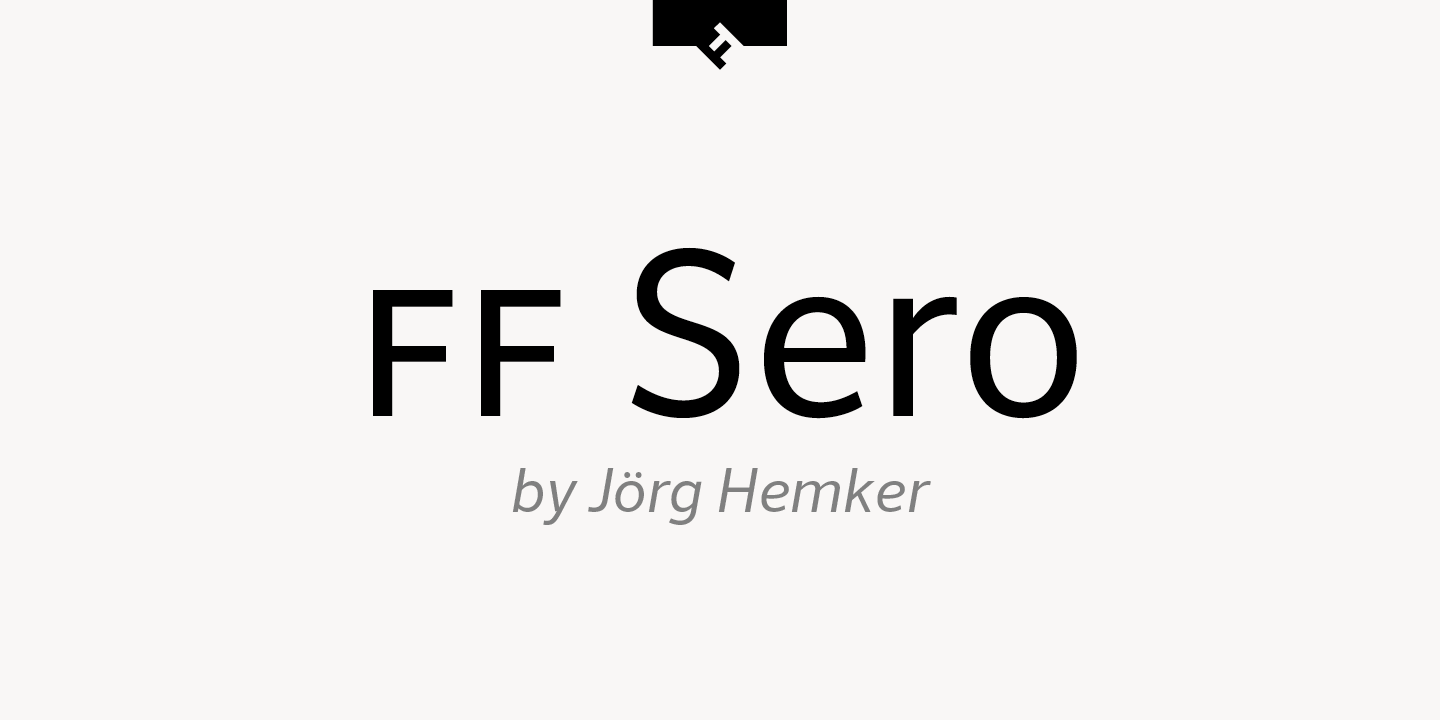
FF Sero Font is a contemporary sans-serif typeface that balances clean design with a touch of human warmth. Perfect for corporate branding, editorial layouts, app interfaces, and signage, it offers both professionalism and personality in one sleek package.
What makes FF Sero Font Free Download so exciting is its subtle curves and open letterforms, which enhance readability while still offering visual interest—making it ideal for both display and body text.
The FF Sero Font family includes a wide range of weights and styles, from Thin to Black and matching italics, giving you the typographic tools to build strong, flexible designs.
Whether you're designing websites, corporate brochures, magazines, or even user dashboards, FF Sero Font Free Download provides the clarity and charm needed for modern design work.